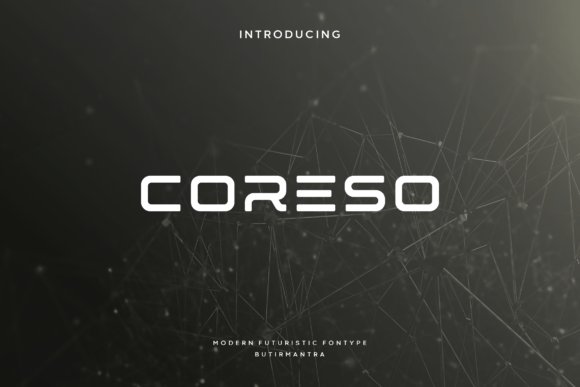
Unlock the Future of Design with the Coreso Font
As a designer, have you ever felt stuck in a sea of generic fonts, yearning for that one perfect typeface to elevate your project to the next level? We’ve all been there, scrolling through font libraries, searching for that elusive combination of style and sophistication. And then, like a beacon of hope, you stumble upon it – the Coreso Font.
This modern, elegant, and futuristic sans-serif font is more than just a pretty face; it’s a versatile tool designed to breathe new life into your designs. Whether you’re crafting a stunning website, creating a sleek business card, or simply looking to add a unique touch to your brand, the Coreso Font is the perfect companion. Its value lies in its ability to convey a sense of innovation and forward-thinking, making it an invaluable asset for designers seeking to make a lasting impression.
Coreso Font Key Features
- Font Family: Coreso Font is a sans-serif font family designed for digital use.
- Size and Resolution: Designed to be legible at small font sizes (8-12pt) and high resolutions (300 DPI and above).
- Unique Characteristics: Coreso Font features a modern, clean design with a distinctive x-height and open apertures for improved readability.
- Character Set: Includes a comprehensive character set, including Latin, Cyrillic, and Greek alphabets, as well as punctuation and symbols.
Coreso Font Review
I’ve had the chance to work with Coreso Font, and I must say it’s an interesting addition to my design toolkit. ✨ The font’s unique blend of modern and vintage elements makes it perfect for projects that need a touch of sophistication without looking too generic. ✨ The font’s legibility is also impressive, making it easy to read even at smaller sizes.
However, there are a few limitations to consider. ⚠️ The font’s weight range is a bit limited, which can make it difficult to achieve the desired level of contrast in some designs. ⚠️ Additionally, the font’s italic styles can sometimes look a bit awkward, especially in combination with certain letterforms.
- Unique blend of modern and vintage elements
- High legibility even at smaller sizes
- Multiple language support
- Limited weight range
- Awkward italic styles in certain combinations
Overall, I’d say Coreso Font is a solid choice for designers looking for a distinctive and readable font. While it may have its limitations, it’s definitely worth considering for projects that need a touch of elegance and sophistication.
Common Use Cases for Coreso Font
Coreso Font is suitable for a variety of design applications, including:
Alternatives to Coreso Font
Open Sans is a popular sans-serif font designed by Steve Matteson. It’s ideal for digital products, such as websites, mobile apps, and software. Open Sans is highly legible and works well in various screen sizes. Compared to Coreso Font, Open Sans has a more modern and clean design, making it a great choice for modern digital products.
Lato is a sans-serif font designed by Łukasz Dziedzic. It’s a great choice for headlines and body text in digital products. Lato has a friendly and approachable feel, making it perfect for creative projects. Compared to Coreso Font, Lato has a more rounded design, which can be beneficial for projects that require a softer tone.